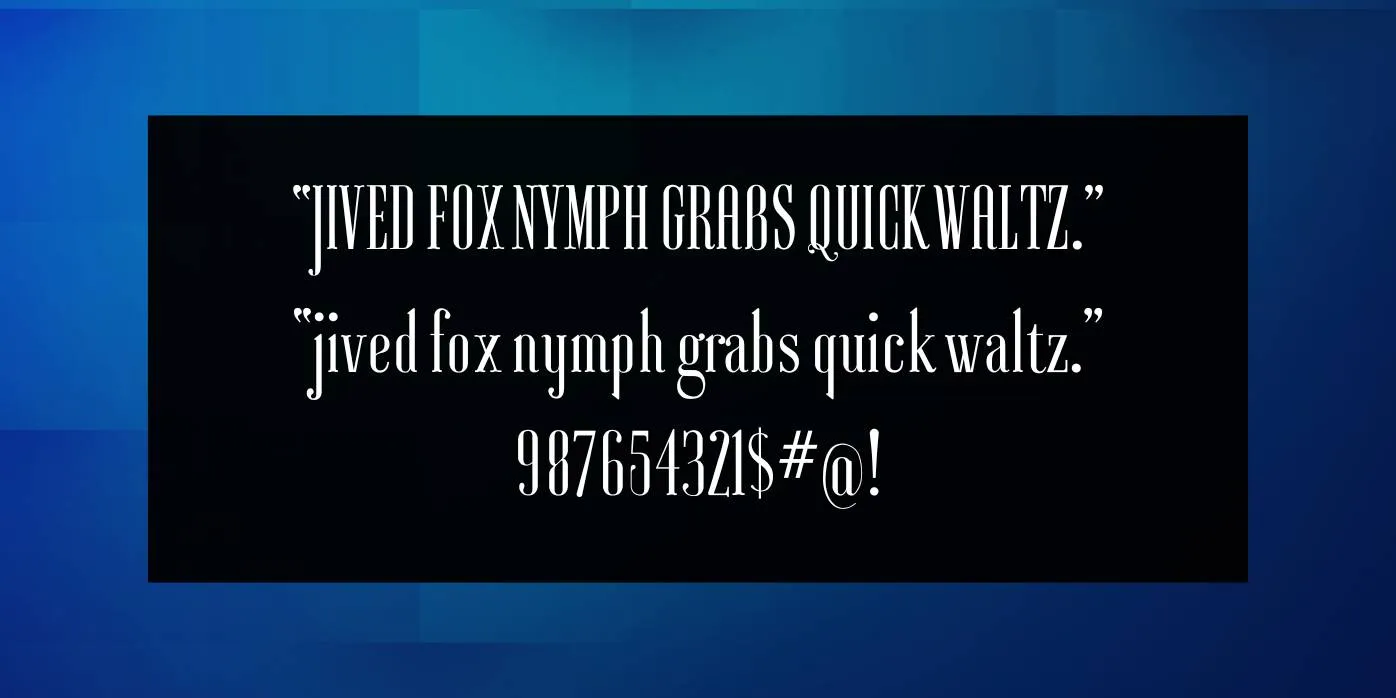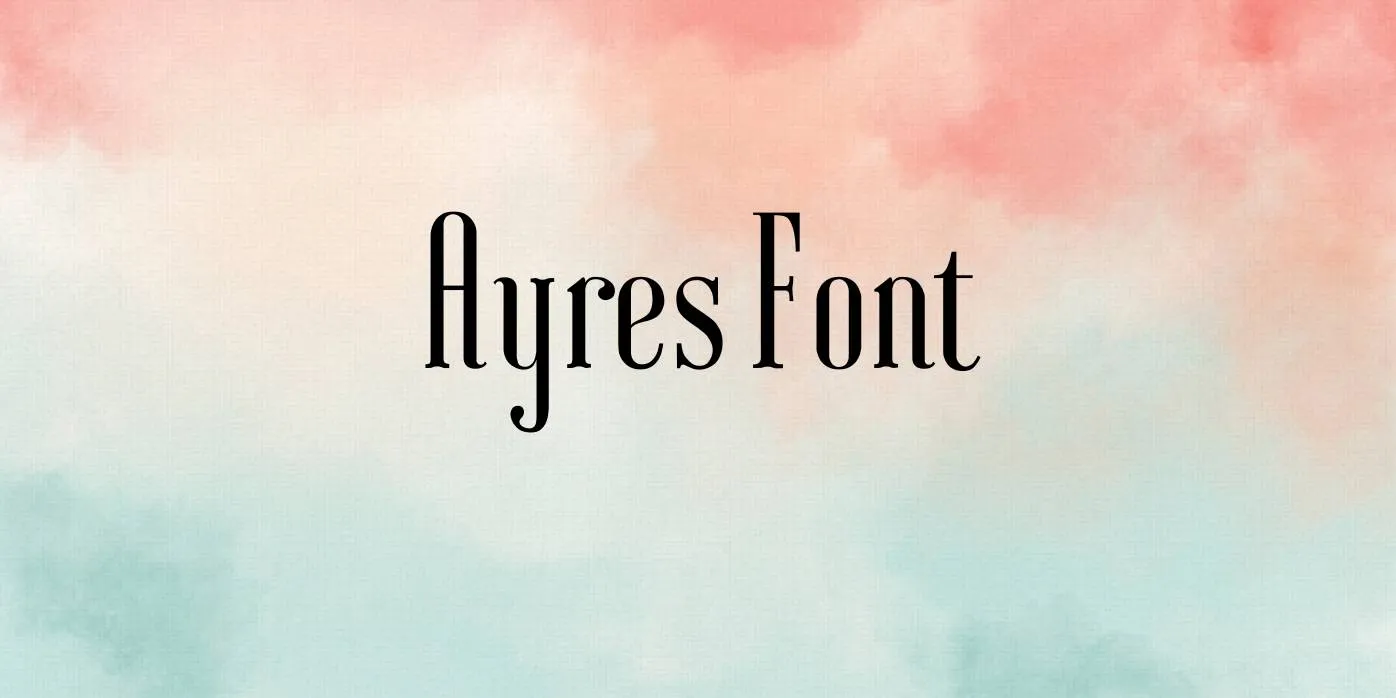
Ayres Font
Let’s talk about a unique font Ayres Font. It was designed by MAGOfonts. It is a very nice font with unique glyphs. The purpose of making this font is to make it easier for kids to read and have fun while using it.
It contains 213 characters 221 glyphs and 1000 units per Em. Unicode is supported by this font 2.0 and BMP only. Embedding rights are allowed for preview and printing only. An online generator tool also supports it to make and change simple text into a stylish look.
The Thin texture of this font gives it a very strong and attractive personality.  Usage It can be used to make many different projects having a lot of features small letters, capital letters, symbols, special characters, punctuation, and numbers. You can make different projects using this font in MS Office such as MS Word, PowerPoint, and Microsoft Exel. In Adobe Photoshop and CSS, you can edit or make new designs by using this font. It is very easy to read and can be used for branding projects as well as for printing.
Website and graphics designs can also be made by using this font. For packing products of different brands you can also use it. For all types of printing and digital media, this typeface is a good option. All projects of personal and commercial can be made easily by using this font.